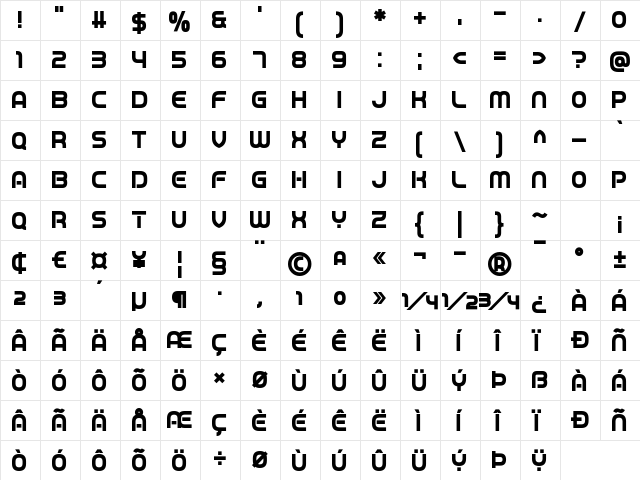
Game Played Regular
Game Played offers clean, dependable letterforms without strong stylistic allegiance, making it a practical choice for designers who need flexibility.